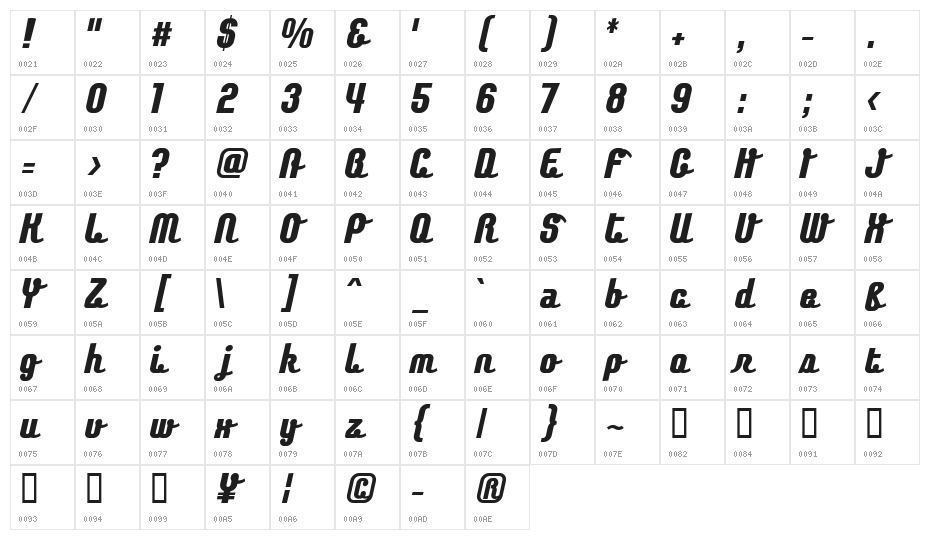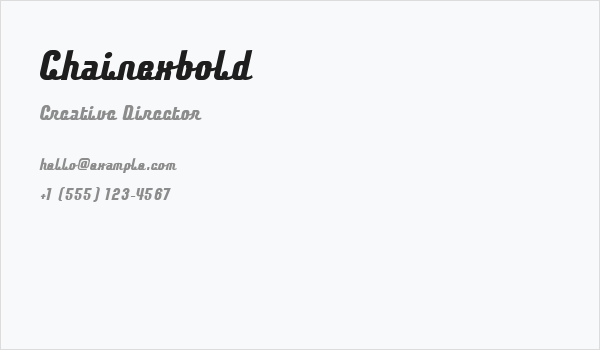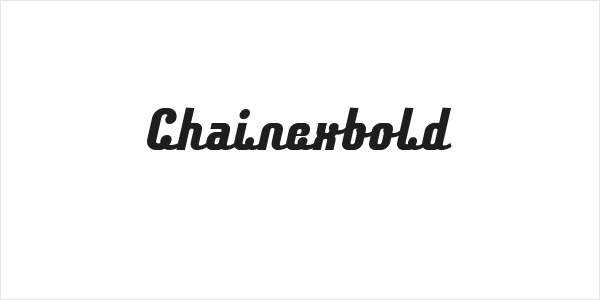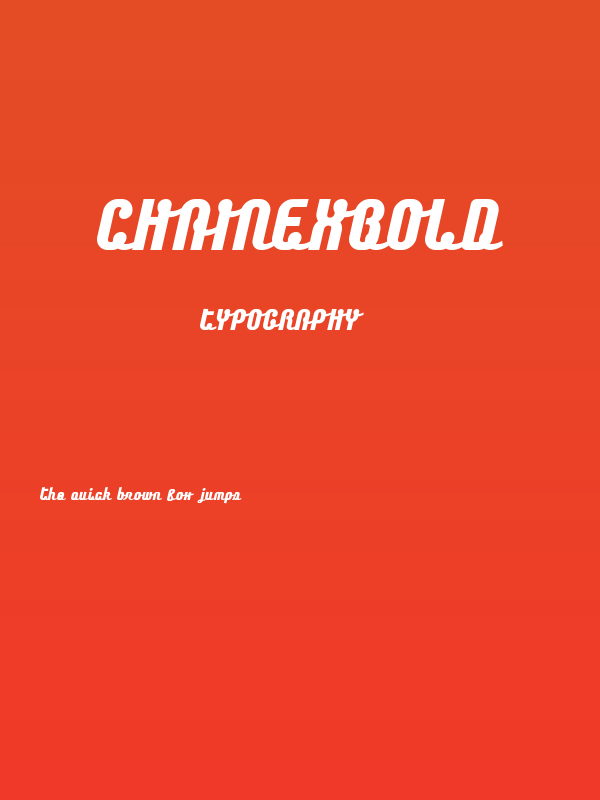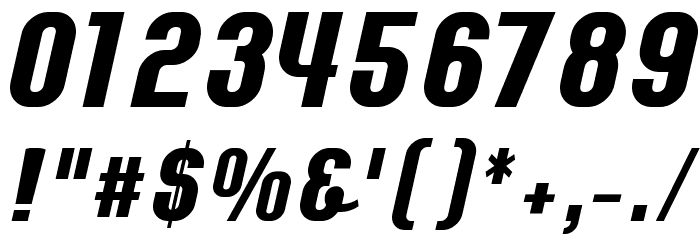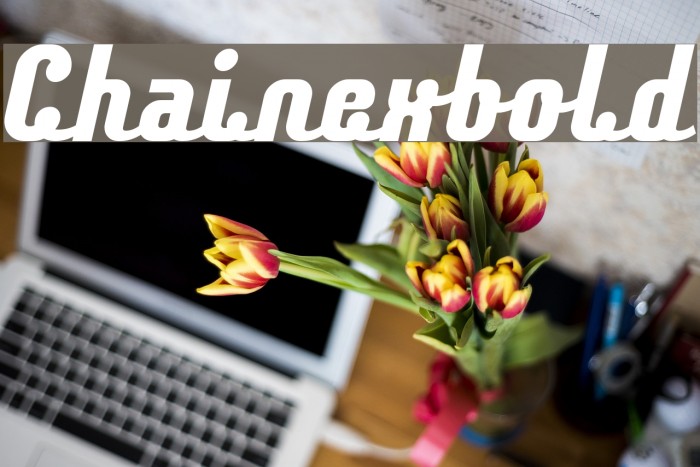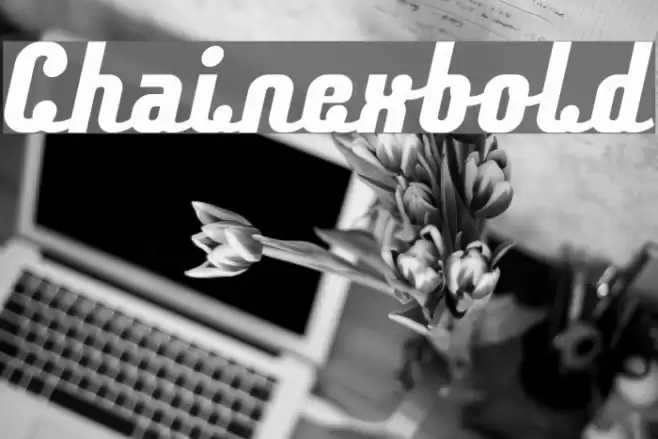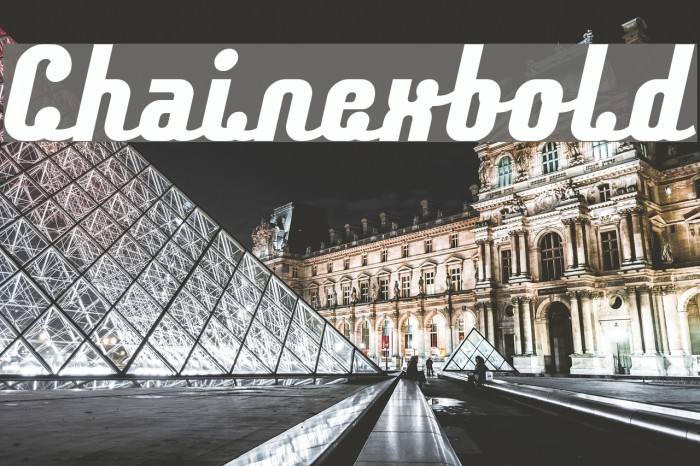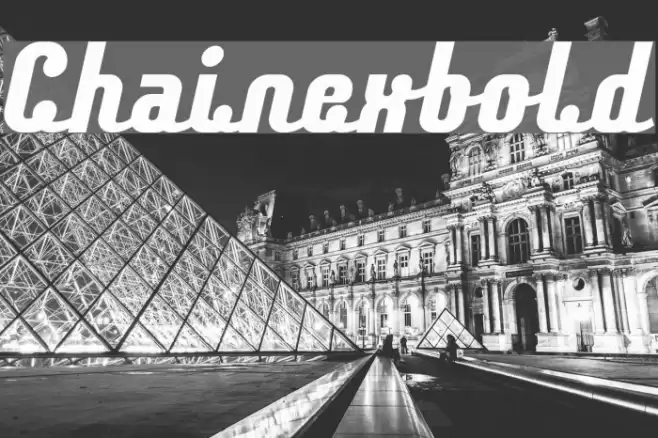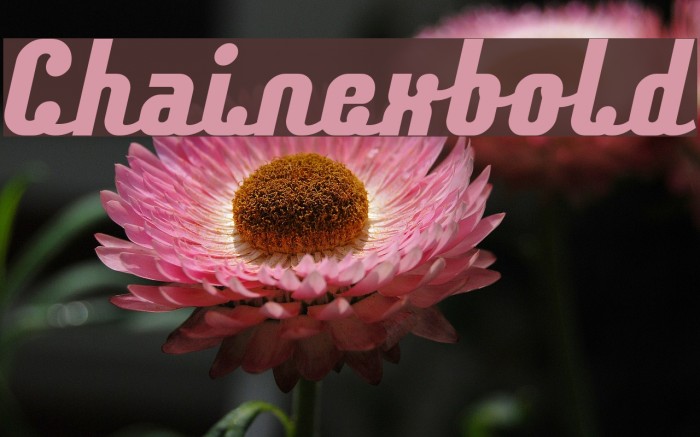
Chainexbold Font
Chainexbold Description
This font features a bold and dynamic style with a strong presence. The characters are designed with a slight slant, giving them a sense of movement and energy. The strokes are thick and consistent, providing a robust and impactful appearance. The uppercase letters are slightly taller than the lowercase, maintaining a uniform width that enhances readability. The numbers are equally bold, ensuring they stand out clearly. Special characters are included, matching the overall bold and energetic style of the font. This typeface is ideal for making a statement, with its bold strokes and slanted design that convey a sense of urgency and modernity.
| Proposed Projects | Ideal for sports branding, dynamic posters, and eye-catching headlines. |